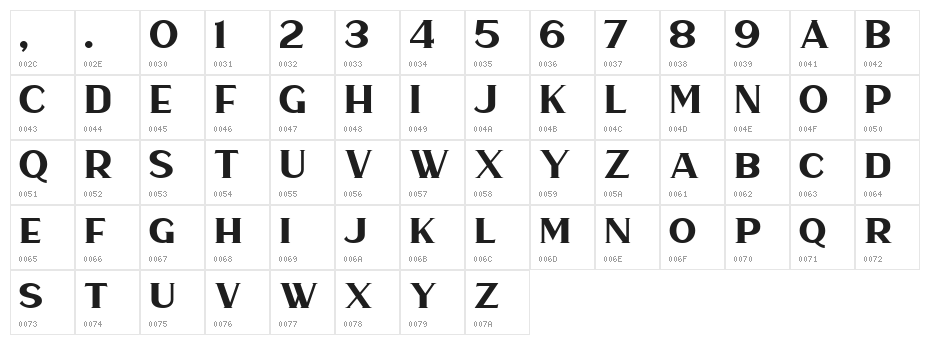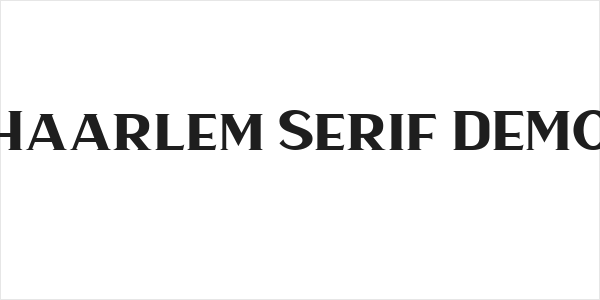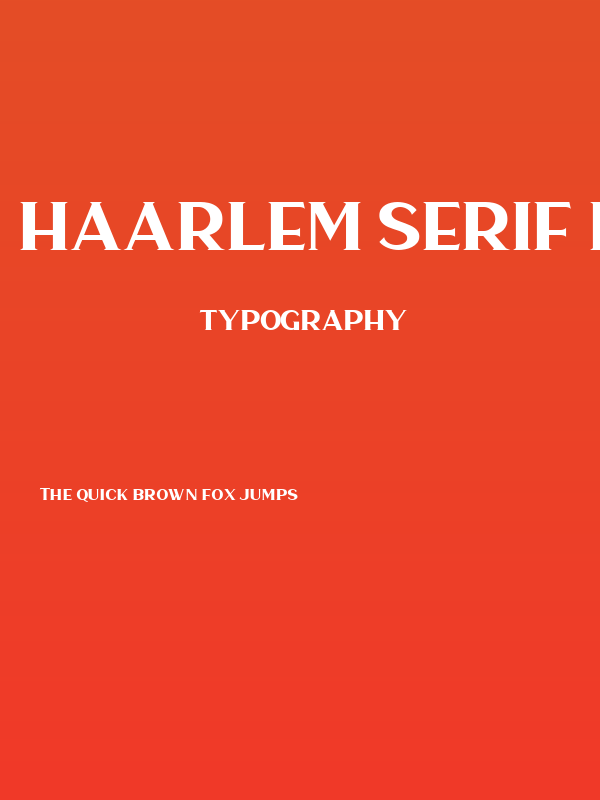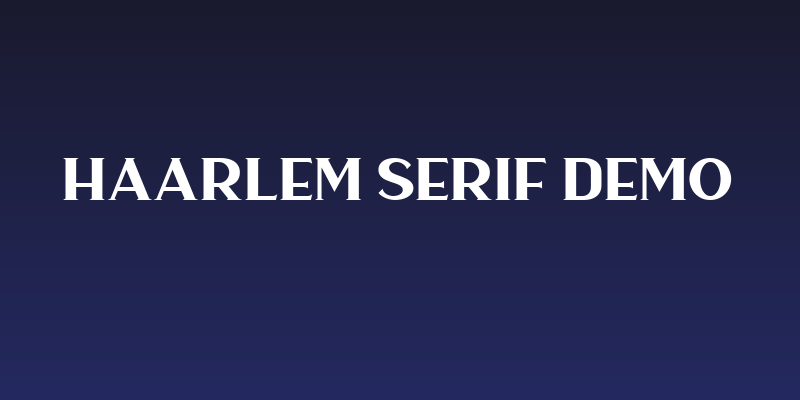
Haarlem Serif DEMO Font
Haarlem Serif DEMO Description
This serif font features a classic and elegant design with strong, distinct serifs that provide a traditional feel. The characters are well-proportioned, with a balanced weight that gives a sense of stability and formality. The uppercase letters are bold and commanding, while the lowercase letters maintain a consistent style that complements the overall aesthetic. The numerals are clear and easy to read, making them suitable for various applications. The punctuation marks are simple yet effective, ensuring clarity in text. This font is versatile, suitable for both digital and print media, and can be used in a variety of design projects.
| Proposed Projects | Ideal for editorial design, book covers, formal invitations, and branding projects that require a touch of elegance. |